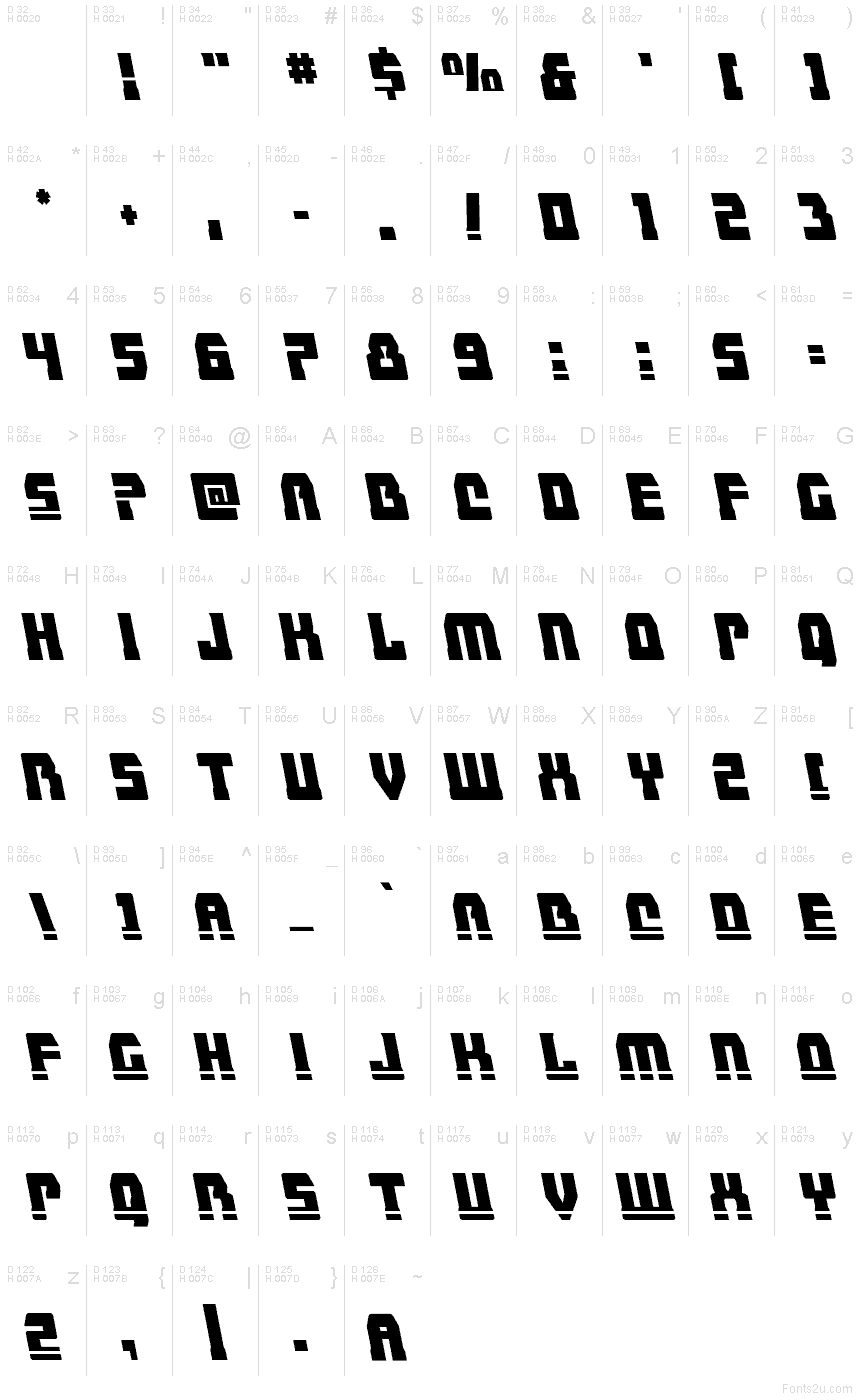
Librator Stripe Leftalic
Librator Stripe Leftalic font by Iconian Fonts is a display typeface with a bold techno style. This font has a retro and geometric appearance with prominent angular shapes that give it a strong presence. The font’s design takes on a modernist influence that makes it suitable for both contemporary and futuristic themes.